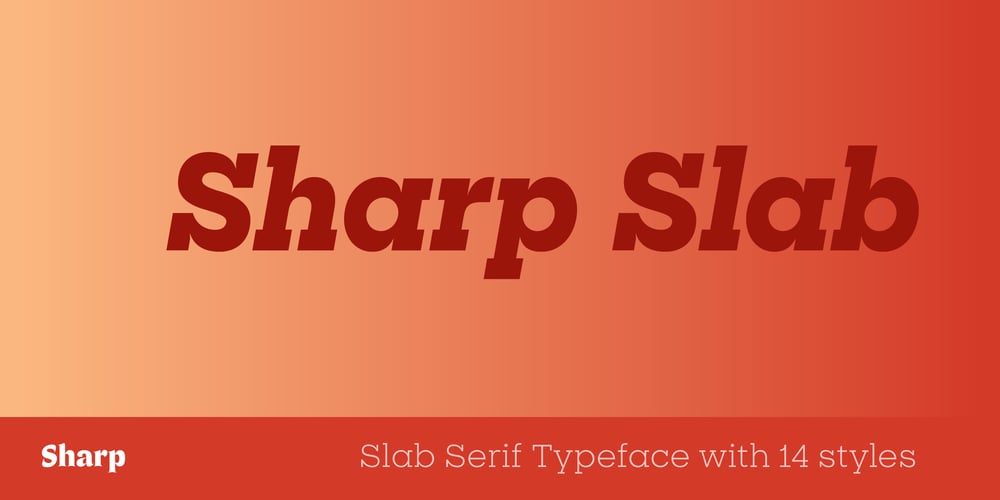
Sharp Slab Font Family was designed by Lucas Sharp, Connor Davenport and published by Monotype. Sharp Slab contains 14 styles and family package options. The Sharp Sans Collection comprises four related families created for editorial design that began as a pair of display fonts inspired by Herb Lubalin’s iconic Avante Garde; Sharp Sans Display No.1 and No.2 then attracted Hillary Clinton’s creative team in 2016, which necessitated an expansion of the family that was designed within the unique environment of a modern presidential campaign, giving birth to Sharp Sans Standard and Slab to complete the family. The Sharp Sans Collection has been optically designed for comprehensive editorial situations requiring complex typographic hierarchy, and was developed and rigorously tested during a key turning point in the era of digital communications. Sharp Sans adapts to a wide range of moods but stays centered on geometric neutrality, communicating both clarity and familiarity. The Sharp Sans superfamily was designed to fulfill every possible typographic need on the campaign trail: headlines and banners, readable text in both digital and printed contexts, websites and social media platforms, and everything in between. These wide-ranging needs utilized daily over the course of a modern presidential campaign have ensured the relevance of Sharp Sans in our contemporary world, where adaptability and timelessness have become fundamental requirements of digital type design.